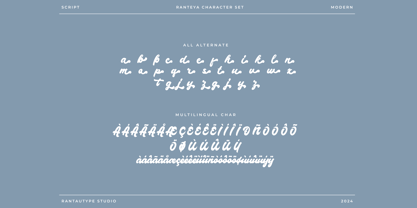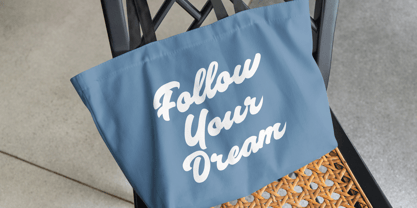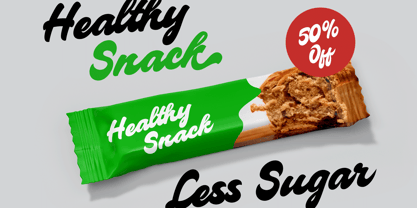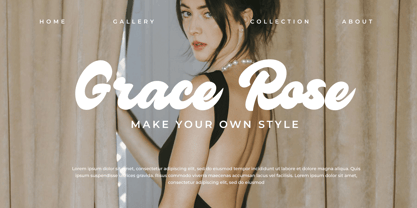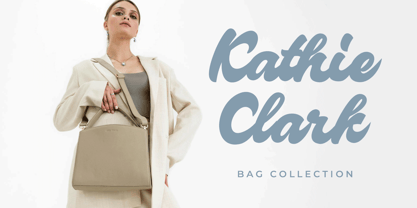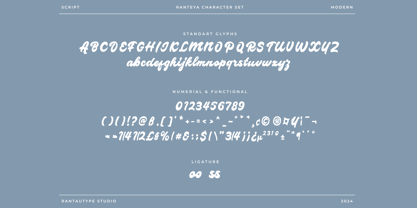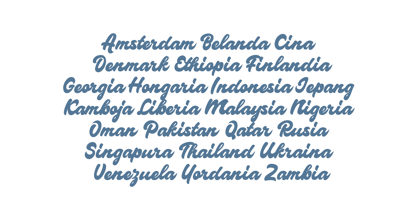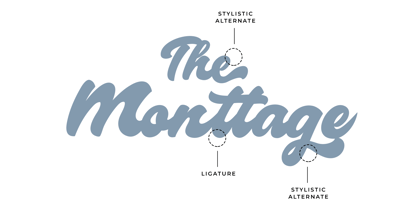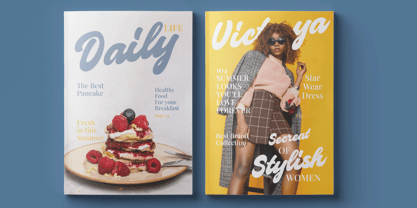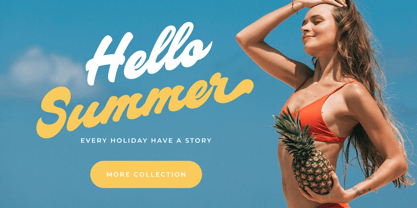
Ranteya
by RantauType
The Ranteya Font Family was designed by Yudi Pratama Chandra and published by RantauType. Ranteya contains 1 styles. More about this family
Bring you professional brand with Ranteya, ranteya is Classy script font embrace grace and feminity. Ranteya is a perfect choice for any creative endeavor, lifestyle design such as logos, title, watermark on photography, cover, branding, display and magazine, wedding event, corporate brand, quotes, album cover, business card, business project, company branding and more project with handwritten taste.
• Standart Gylphs
• Numberial and Functional
• Ligature and alternate